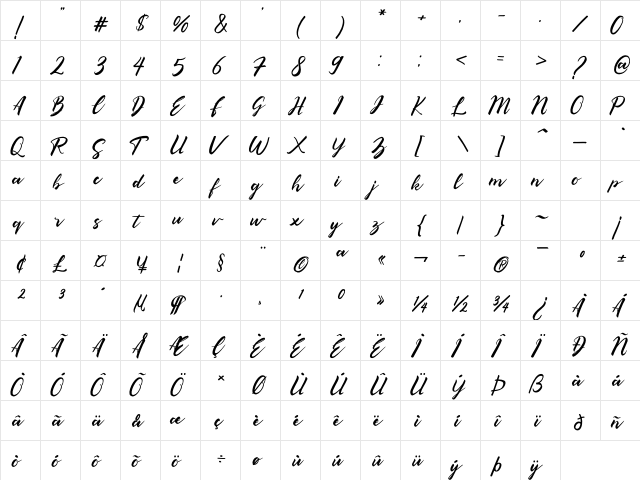
Qasshim Regular
| Designer | Chrisna Tri Hartadi |
Design Context for Qasshim Typeface
Qasshim is a composed and adaptable typeface that performs quietly and consistently across a wide range of design contexts.